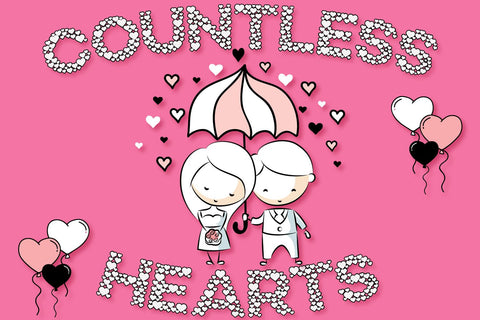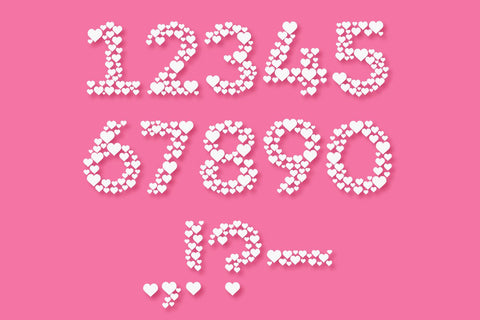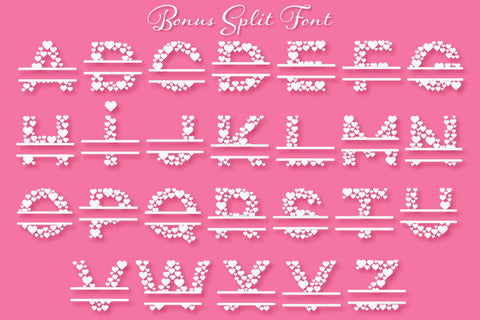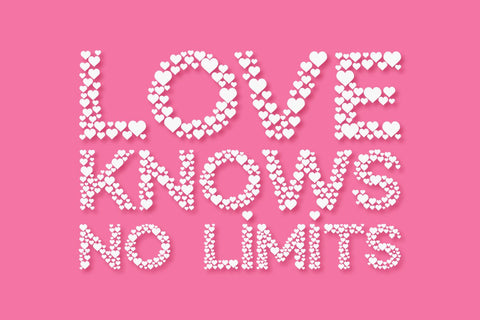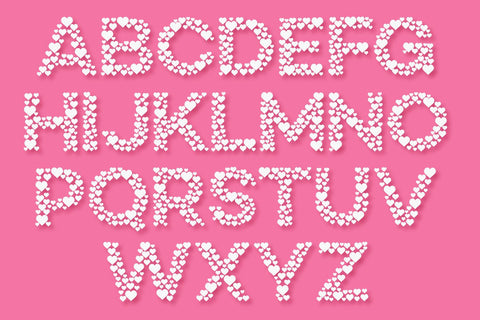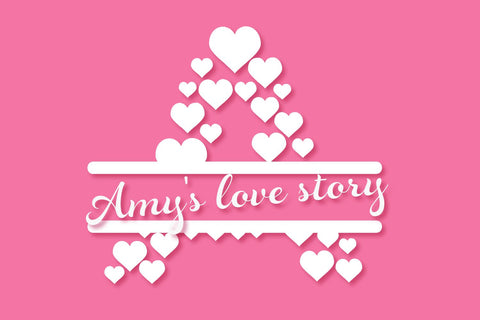
Countless Hearts Love Font & Bonus Split Font
If you had seen my fonts before, you know that I like creating playful fonts. This font is no different.
It is a handcrafted font created from scratch, using as little points as possible to ensure you get the best results with minimum difficulty.
- Countless Hearts Regular. Comes with uppercase A-Z letters, numbers & punctuation
- Countless Hearts Split. Comes with uppercase A-Z letters.